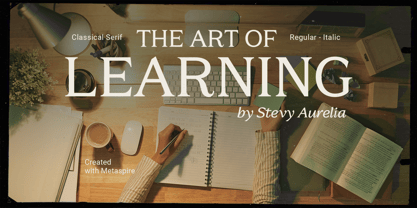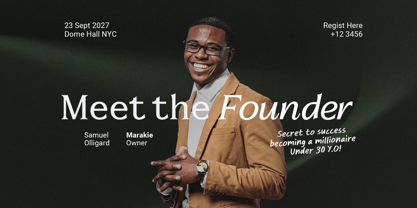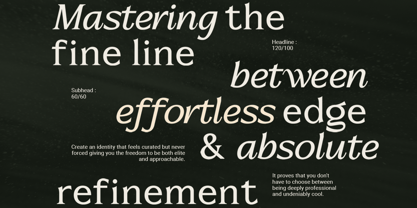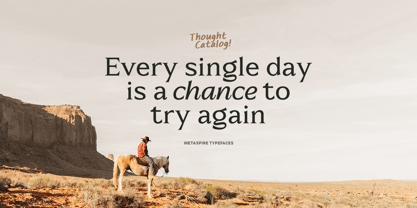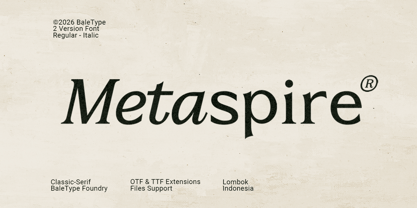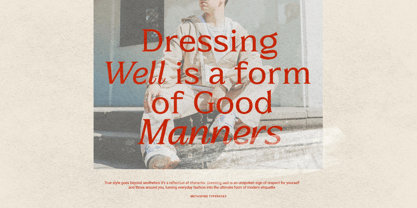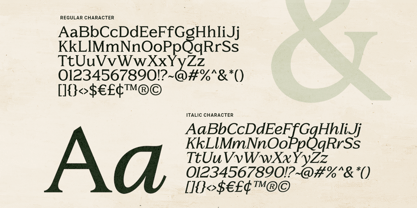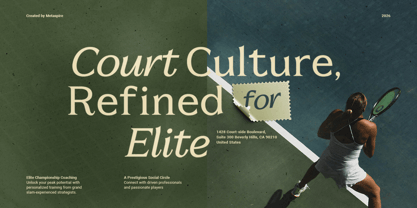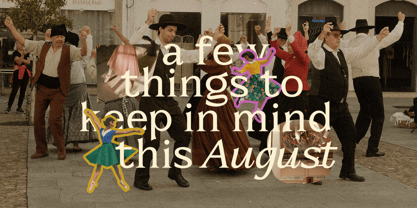
Metaspire
by Bale Type
The Metaspire Font Family was designed by Dzikrul Aulia and published by Bale Type. Metaspire contains 2 styles and family package options. More about this family
Metaspire is a modern display serif that blends minimalist elegance with a bold, sophisticated character. Designed to make a lasting impression, this versatile typeface is perfect for a wide range of creative projects, including logotypes, posters, quotes, titles, branding, packaging, editorial layouts, and any design that calls for a refined modern serif touch. It comes with a beautifully crafted italic style that pairs seamlessly with the regular version, allowing you to create striking typography with added depth and personality. Whether used for bold headlines or stylish visual identities, Metaspire delivers a timeless yet contemporary aesthetic. The font also includes multilingual support, making it suitable for projects across various languages.